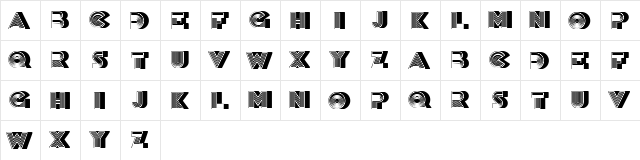
Discoteque Filled Regular Font Preview
Discoteque Filled Regular
Design Context for Discoteque Filled Typeface
Discoteque Filled is a composed and adaptable typeface that performs quietly and consistently across a wide range of design contexts.